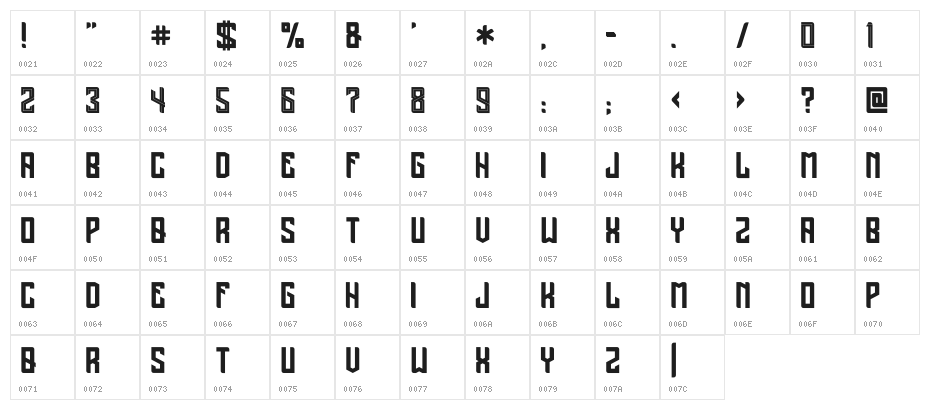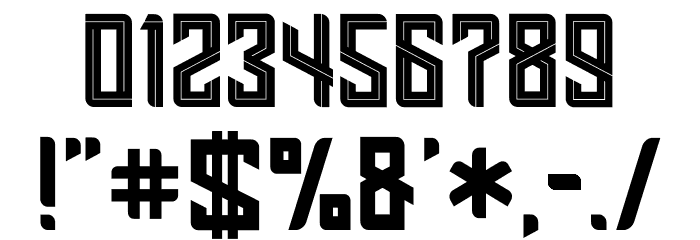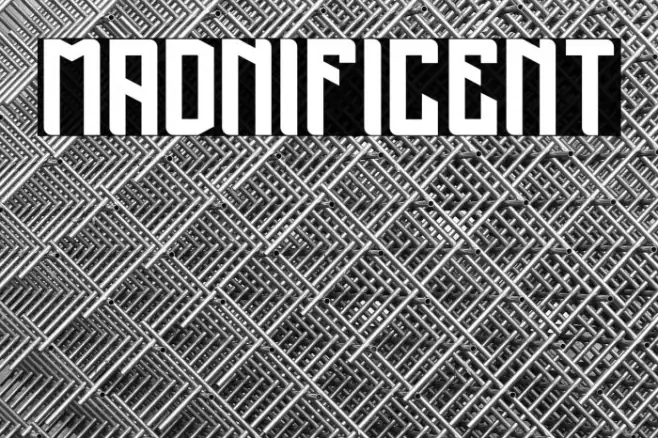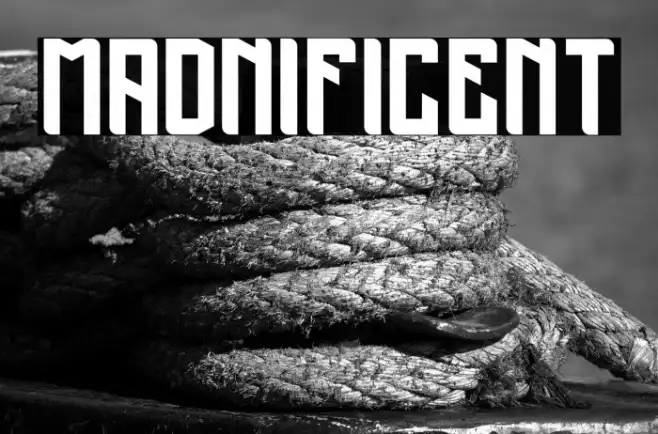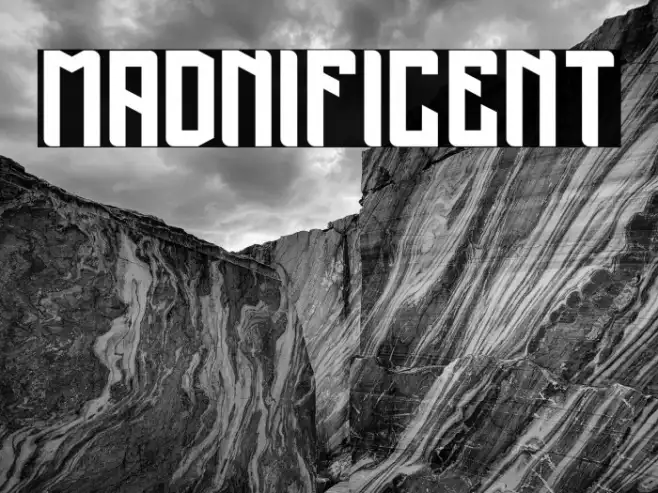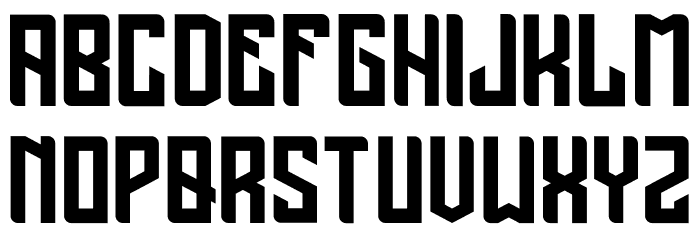
Madnificent Font
Madnificent Description
This font features a bold, geometric design with a strong, angular structure. The characters are constructed with thick, uniform strokes that give it a robust and impactful appearance. The uppercase letters are particularly striking, with sharp edges and a modern aesthetic that suggests a sense of strength and stability. The numbers and special characters maintain this boldness, ensuring consistency throughout the font. Its design is reminiscent of industrial or futuristic styles, making it suitable for projects that require a modern and assertive look. The spacing between characters is tight, which enhances its compact and cohesive feel. Overall, this font is ideal for making a statement and capturing attention.
| Proposed Projects | Ideal for branding, posters, headlines, and any project that requires a strong, modern aesthetic. |